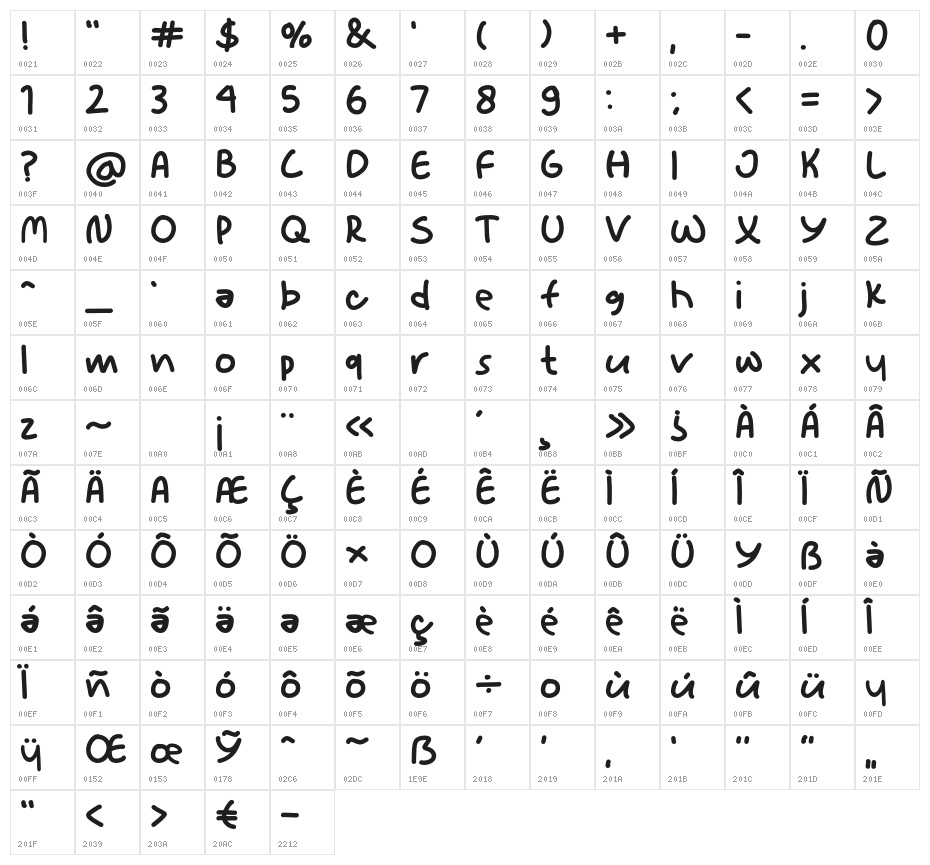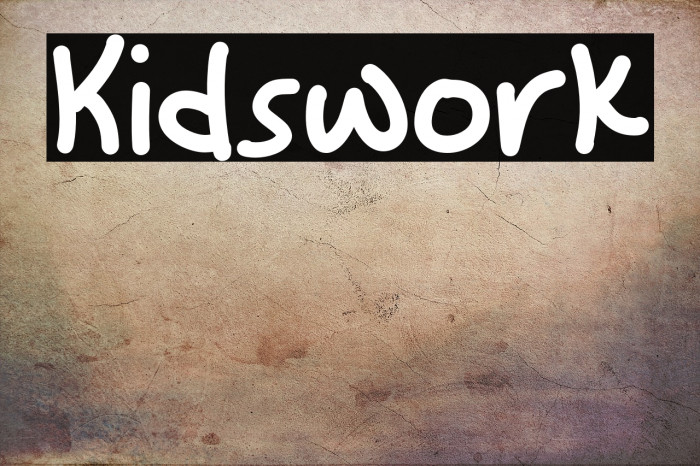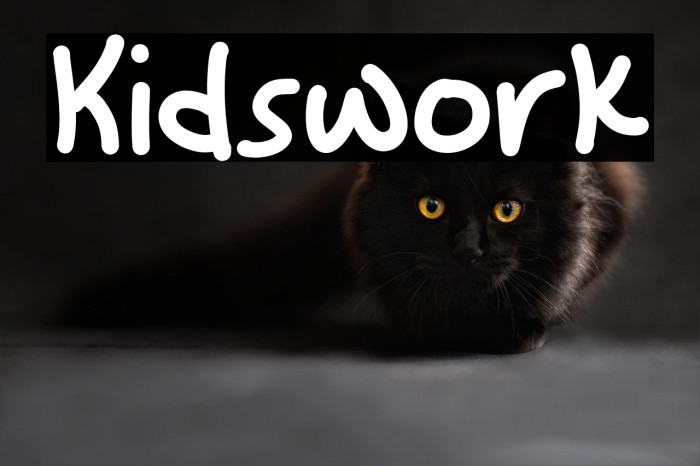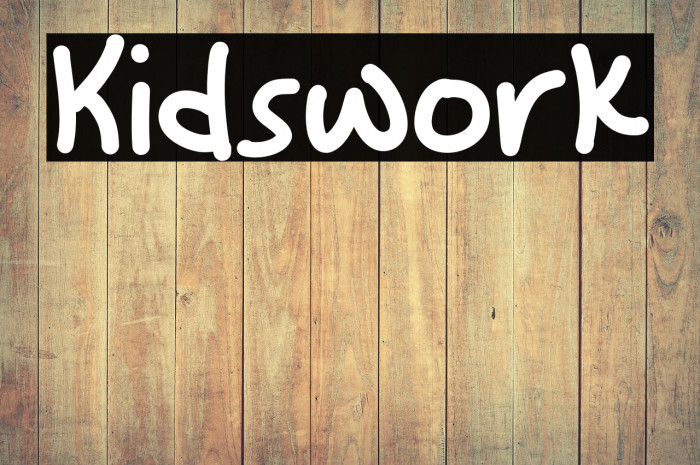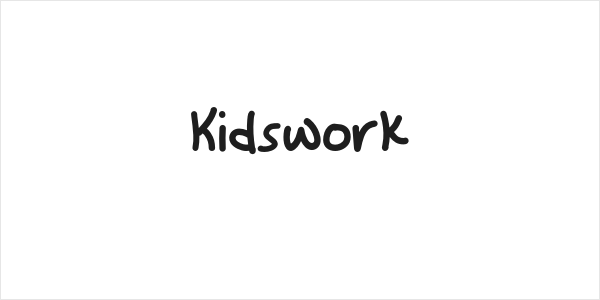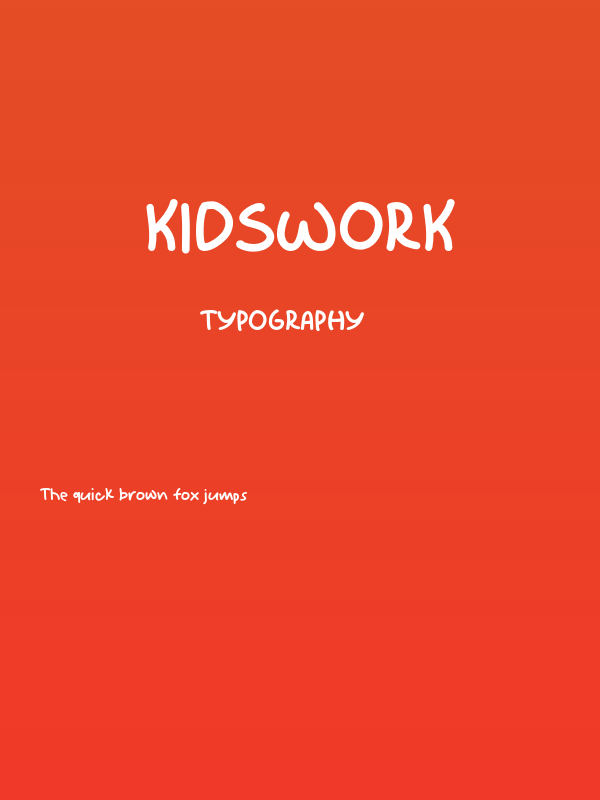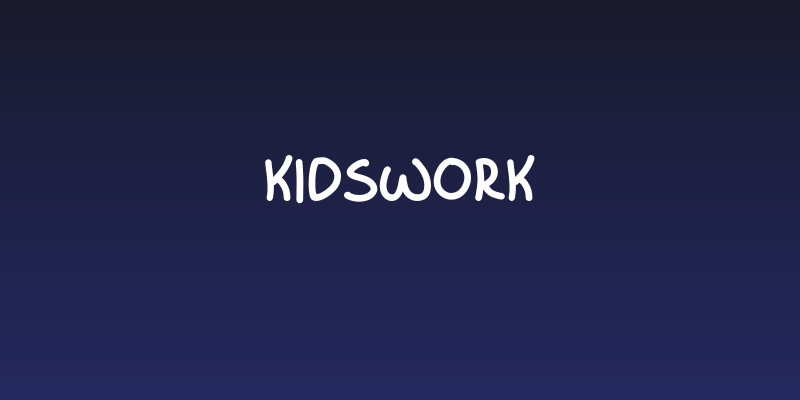
Kidswork Font
Kidswork Description
This playful and whimsical font features rounded, bold characters that evoke a sense of fun and creativity. The letters are slightly irregular, mimicking a child's handwriting, which adds to its charm and appeal. The strokes are consistent in thickness, providing a uniform look while maintaining a casual, friendly vibe. The font includes both uppercase and lowercase letters, numerals, and a variety of special characters, making it versatile for different uses. Its informal style makes it perfect for projects aimed at children or those requiring a lighthearted touch.
| Overall Style | Playful |
| Use Case | Headlines, Logos, Children's materials |
| Proposed Projects | Ideal for children's books, educational materials, playful branding, and any project needing a fun, informal touch. |